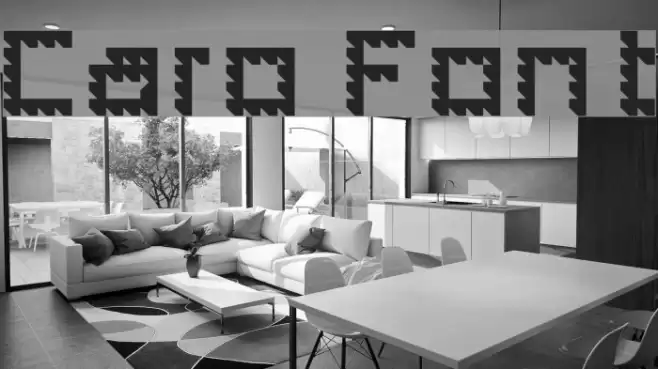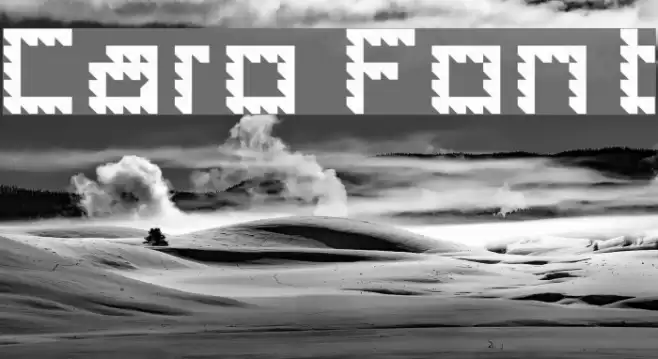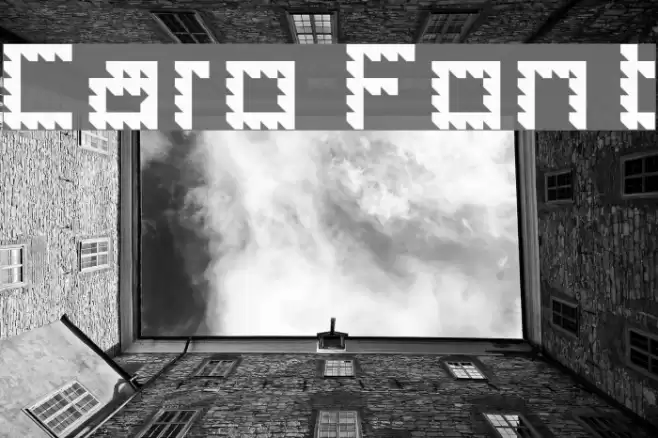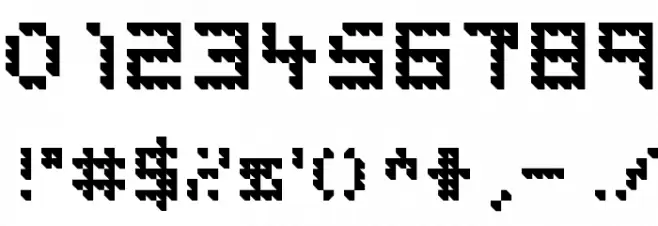
Caro Font
Caro Description
This font features a bold, geometric design with a distinct zigzag pattern running through each character, creating a dynamic and energetic appearance. The uppercase and lowercase letters maintain a consistent style, with sharp angles and a blocky structure that gives the font a modern and edgy feel. The numerals and special characters follow the same design principles, ensuring uniformity across all glyphs. The unique pattern within each letter adds a decorative element, making it stand out in any design project.
A bold, geometric font with a zigzag pattern for a modern, edgy look from Uncategorized fonts.